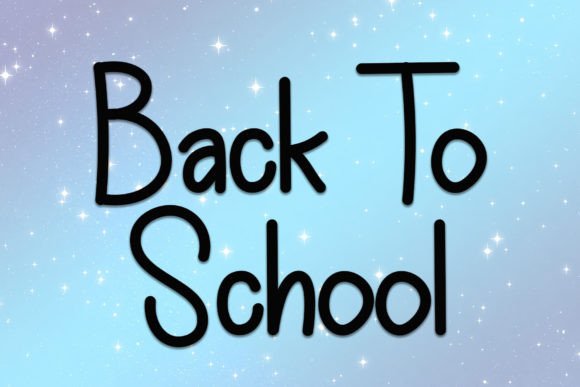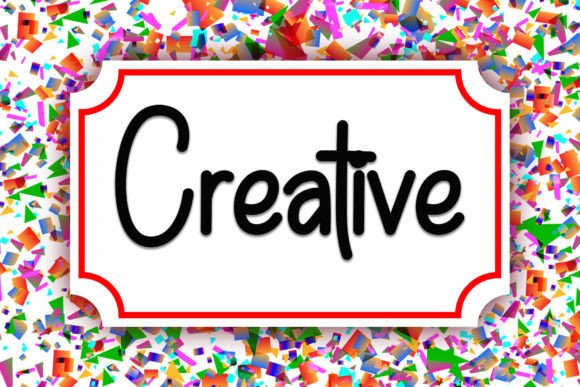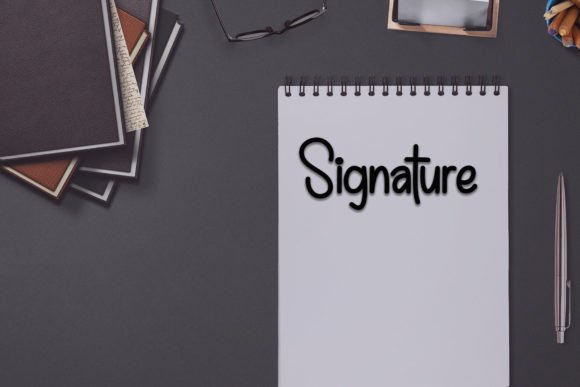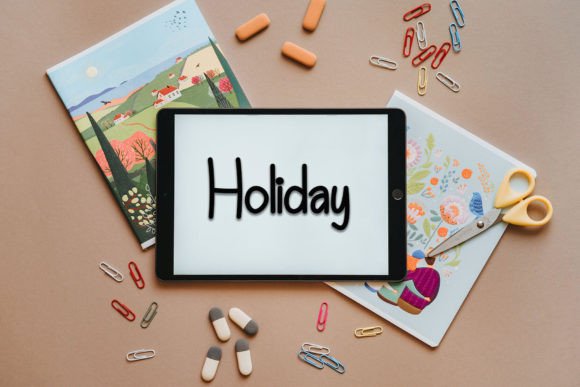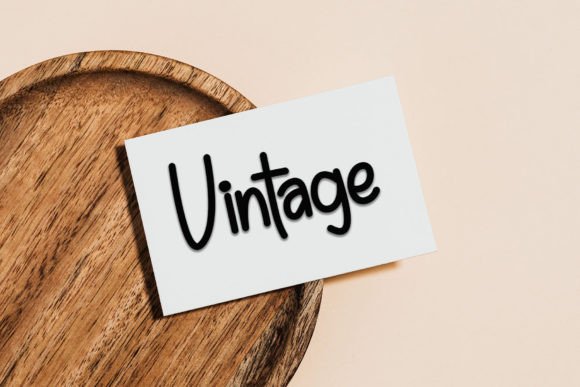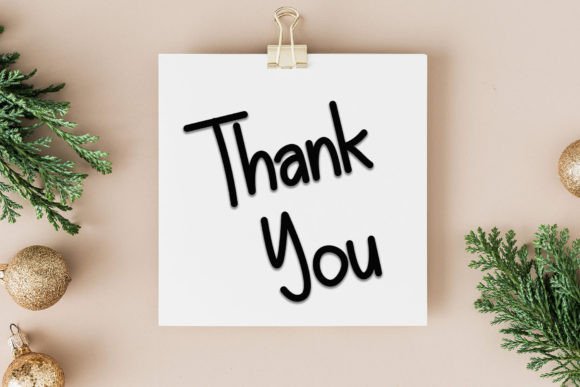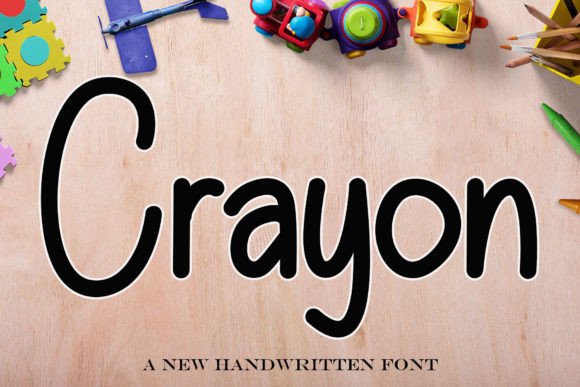
Crayon Font: Elevate Your Designs with a Timeless Classic
Are you looking for a font that adds a touch of elegance and sophistication to your projects? Look no further than the Crayon Font, a stylish handwritten font that exudes a contemporary atmosphere and impeccable form. Inspired by timeless classic calligraphy, this font is perfect for designers and crafters seeking to elevate their designs.
What is Crayon Font?
Crayon Font is a beautifully crafted handwritten font that boasts a balanced and varied design. Its unique style is inspired by traditional calligraphy, yet it has a modern twist that makes it perfect for contemporary projects. With its impeccable form and elegant lines, this font is sure to enhance the beauty of your designs.
Key Features of Crayon Font
• Balanced and Varied: The font has a balanced and varied design, which ensures that your text remains legible and visually appealing.
• Contemporary Atmosphere: Despite being inspired by classic calligraphy, Crayon Font has a contemporary atmosphere that makes it perfect for modern projects.
• Impeccable Form: The font’s impeccable form ensures that your text looks elegant and sophisticated.
Who Can Benefit from Crayon Font?
Crayon Font is perfect for a wide range of designers and crafters, including:
• Graphic Designers: If you’re a graphic designer looking for a font that adds a touch of elegance to your designs, Crayon Font is an excellent choice.
• Calligraphers: If you’re a calligrapher looking for a font that mimics traditional calligraphy, Crayon Font is a great option.
• Crafters: If you’re a crafter looking for a font that adds a personal touch to your projects, Crayon Font is perfect for you.
• Bloggers and Writers: If you’re a blogger or writer looking for a font that adds a touch of sophistication to your content, Crayon Font is an excellent choice.
Tips and Tricks for Using Crayon Font
Here are some tips and tricks for using Crayon Font:
• Use it for Headings: Crayon Font is perfect for headings and titles. Use it to add a touch of elegance to your text.
• Experiment with Colors: Experiment with different colors to find the one that works best for your project.
• Mix and Match: Mix and match Crayon Font with other fonts to create a unique and visually appealing design.
• Pay Attention to Spacing: Pay attention to spacing and adjust it accordingly to ensure that your text remains legible.